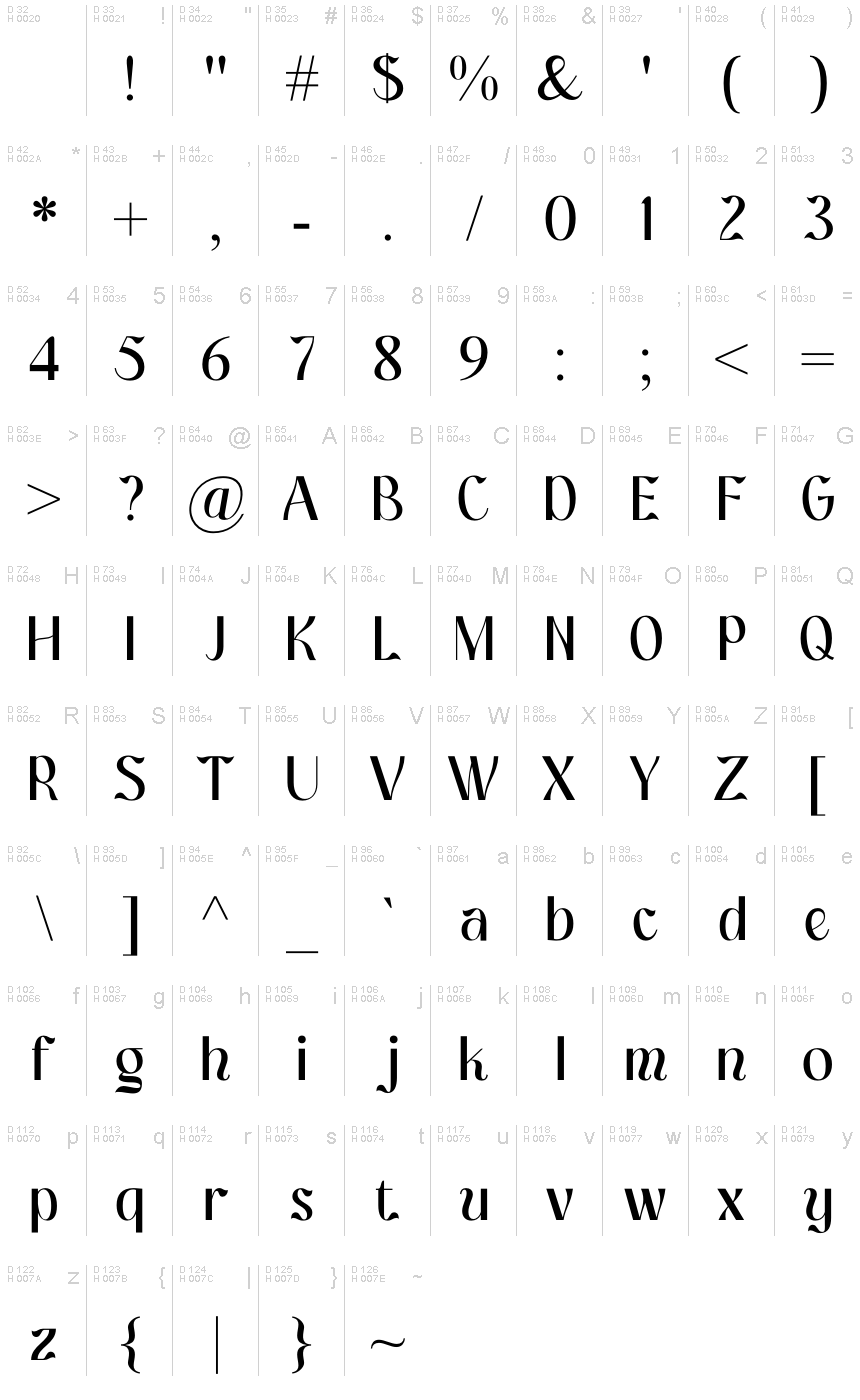
Newlimran
Newlimran, crafted by Storytype Studio, is a striking display font exuding a nostalgic retro charm. Its bold and dynamic characters feature a harmonious blend of thick and thin strokes, creating an eye-catching contrast that demands attention. The elegant curves and fluid lines imbue the text with a sense of vintage sophistication while maintaining modern readability.
Perfect for branding projects, logos, headlines, and posters, Newlimran's unique design adds character and flair to any visual composition. Whether aiming for a classic or contemporary feel, this font effortlessly bridges the gap between past and present aesthetics.